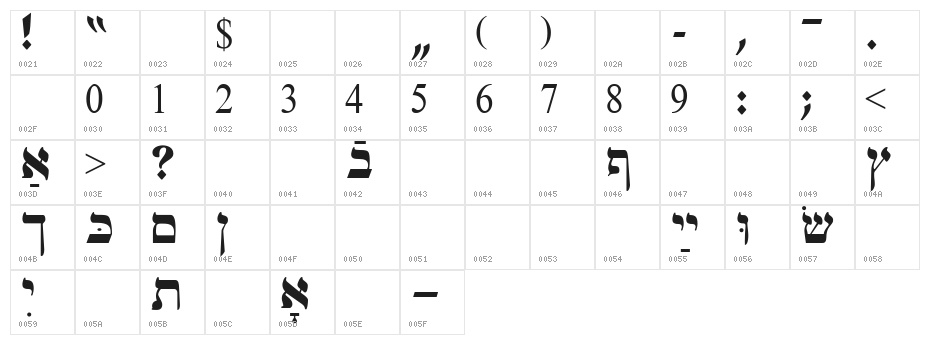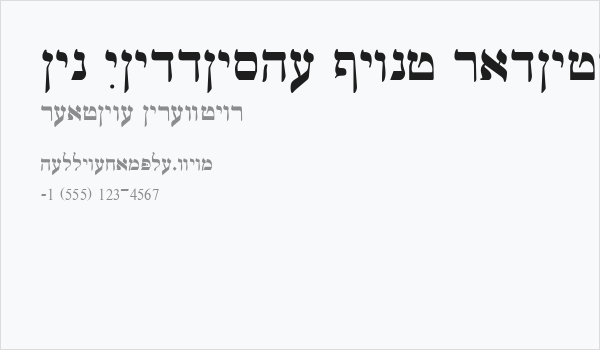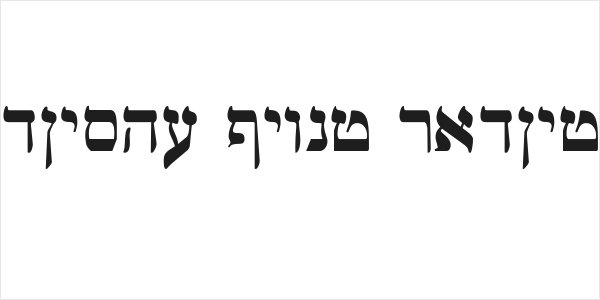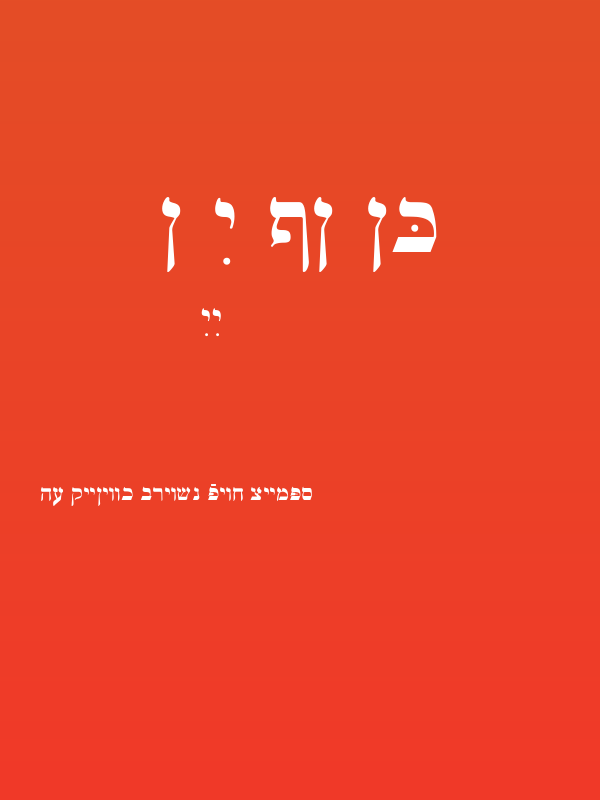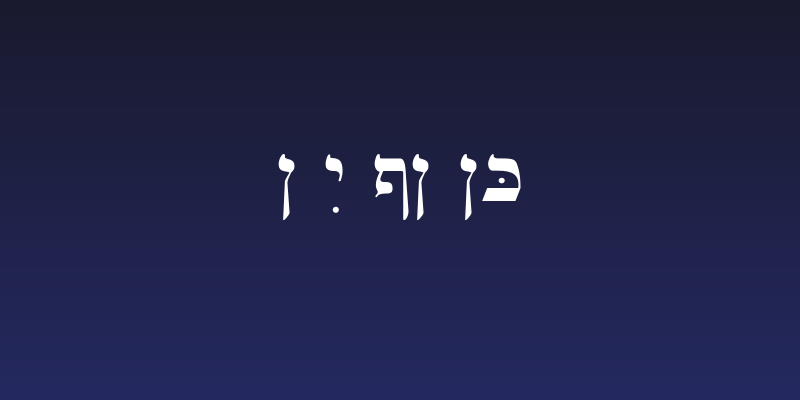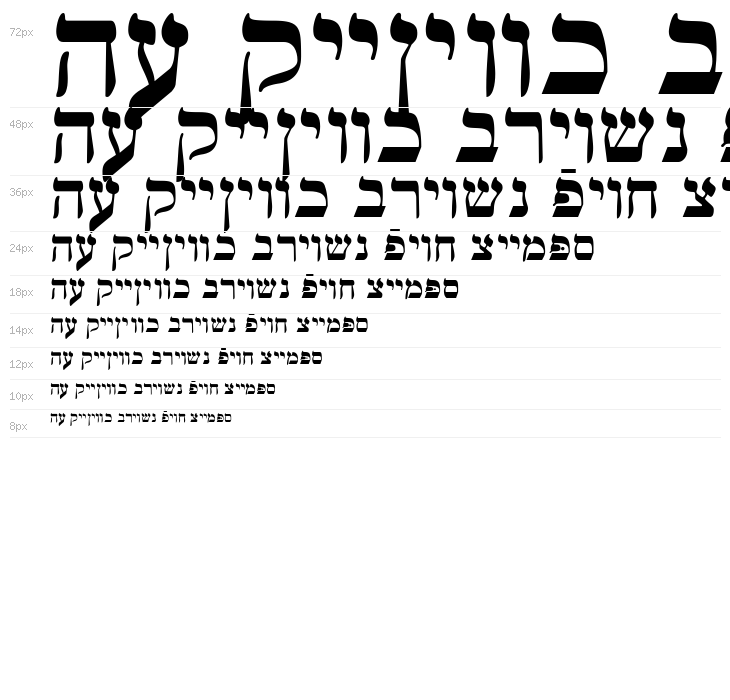
Ain Yiddishe Font Traditional Font
Ain Yiddishe Font Traditional Description
This font features a traditional and ornate design, reminiscent of classic Hebrew script. The characters are bold and have a distinct, intricate style with sharp angles and curves that give it a historical and cultural feel. The numerals and special characters maintain a consistent style, blending seamlessly with the overall aesthetic. The font's unique appearance makes it suitable for projects that require a touch of tradition and elegance, while still being legible and clear.
| Overall Style | Traditional |
| Use Case | Headlines, Logos, Decorative text |
| Proposed Projects | Ideal for cultural projects, religious texts, invitations, and decorative purposes. |